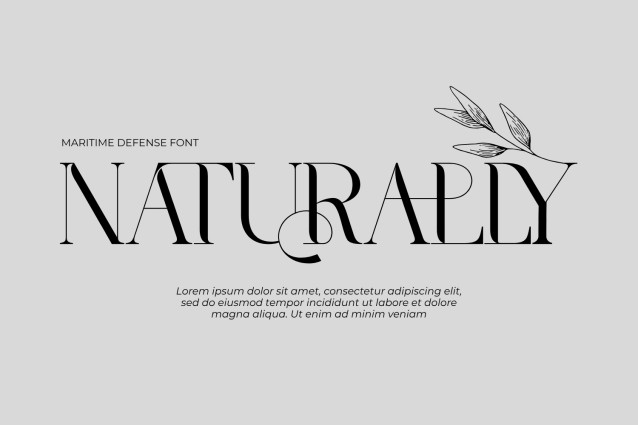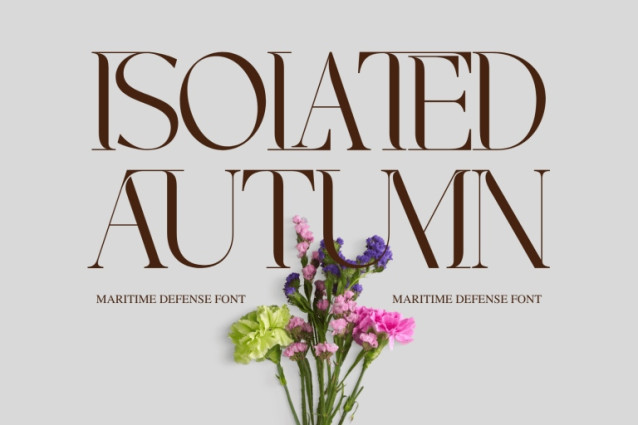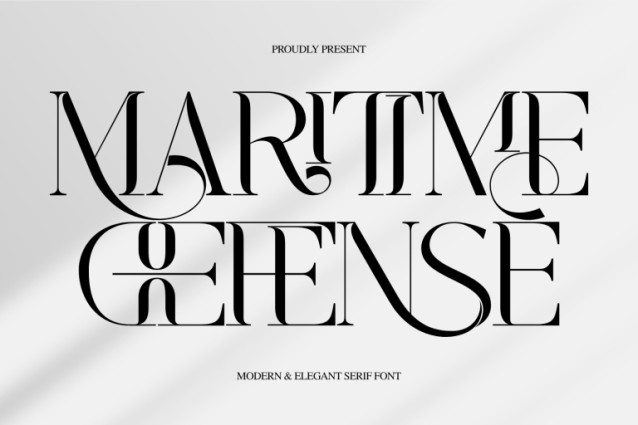
MARITIME DEFENSE – MODERN SERIF FONT – Modern High-Fashion Serif & Interlocking Editorial Display Font is an elegant high-contrast display serif that brings together the sophistication of classic Didone typography and the expressive beauty of contemporary editorial lettering. Defined by dramatic thick-and-thin contrast, razor-fine hairlines, refined serifs, sweeping curves, and graceful ornamental details, the typeface creates a luxurious and instantly recognizable visual presence.
Its tall, sculptural letterforms are enriched with distinctive swashes and extended strokes that flow naturally beyond the traditional character structure. Delicate lines meet bold vertical forms, while elegant curves and unexpected terminals give each word a sense of movement and individuality. The result is a sophisticated display typeface that feels both timeless and fashion-forward.